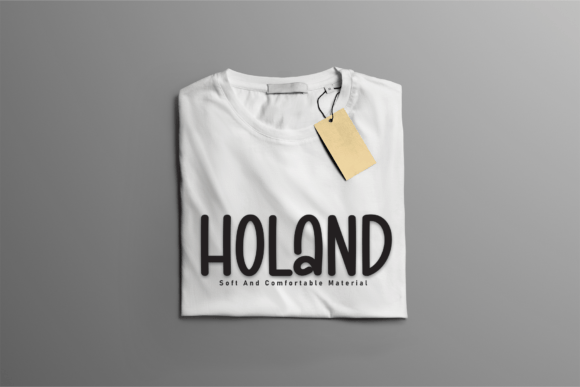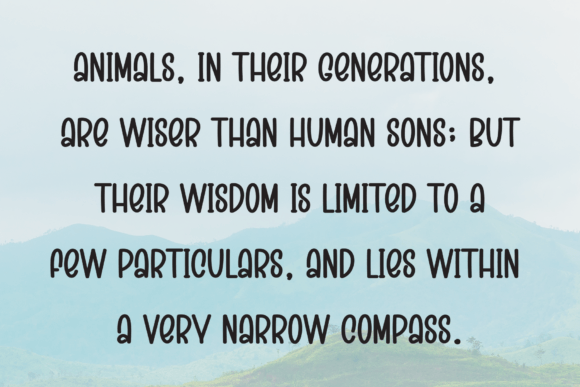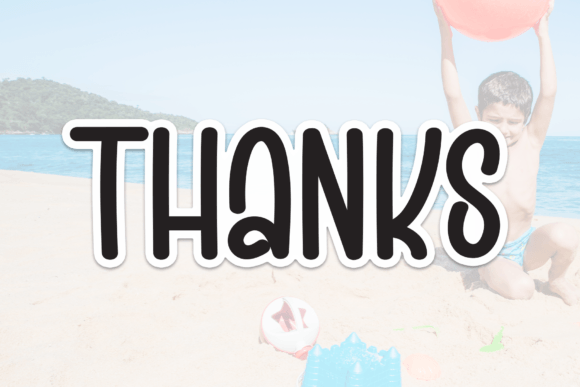
Introduction to Funny Beach Font
Have you ever been stuck on a creative project, searching for the perfect design resource to bring your vision to life? That’s exactly where I found myself recently, and I’m excited to share with you a game-changing discovery – the Funny Beach Font.
As I was brainstorming ideas for a summer-themed project, I stumbled upon this charming handwritten font that instantly captured my attention. Its playful and friendly vibe is perfect for any design project, from children’s books to beach-themed advertisements.
With its unique style and versatility, the Funny Beach Font is an incredibly valuable asset for designers looking to add a personal touch to their work. Plus, it’s available for free download with a transparent background, making it a high-quality addition to any creative project. Get ready to unleash your imagination with this amazing design resource!
Key Features of Funny Beach Font
- Unique, playful design perfect for creative projects, making it an excellent design resource for various applications.
- Comes in a single weight, ideal for projects where a consistent font style is desired.
- Designed with a fun, casual tone, making it perfect for beach-themed, summer-inspired, or children’s content projects.
Honest Review: Funny Beach Font
As a designer, I’m always on the lookout for unique and creative fonts to elevate my projects. The Funny Beach Font is one such find that caught my attention, and I must say it’s been a great addition to my design arsenal.
- The font’s quirky and playful vibe makes it perfect for fun, lighthearted creative projects.
- The high-quality design ensures that the font looks great on a variety of devices and resolutions.
- The font may not be suitable for more formal or professional projects, as its playful nature may not be taken seriously.
- Some users may find the font too whimsical or cartoonish, which may not appeal to everyone’s taste.
Overall, I’m impressed with the Funny Beach Font, and I’d definitely recommend it for designers working on fun, creative projects. Its unique design and high-quality rendering make it a valuable addition to any design resource library.
Tips for Getting the Most Out of Funny Beach Font
Use the font in conjunction with bright and bold colors to create a fun and playful design. Experiment with different font sizes and styles to add visual interest to your project.
Funny Beach Font is perfect for:
Creative projects, such as greeting cards, party invitations, and social media graphics.
Branding and marketing materials, such as logos, business cards, and brochures.
Designing for kids’ products, such as children’s books, toys, and educational materials.